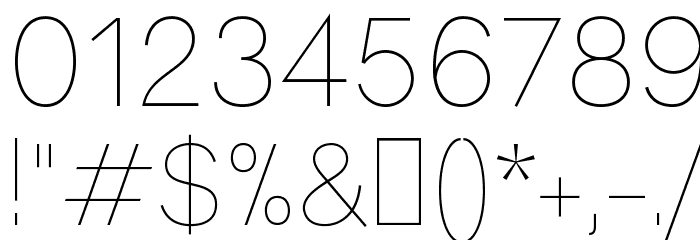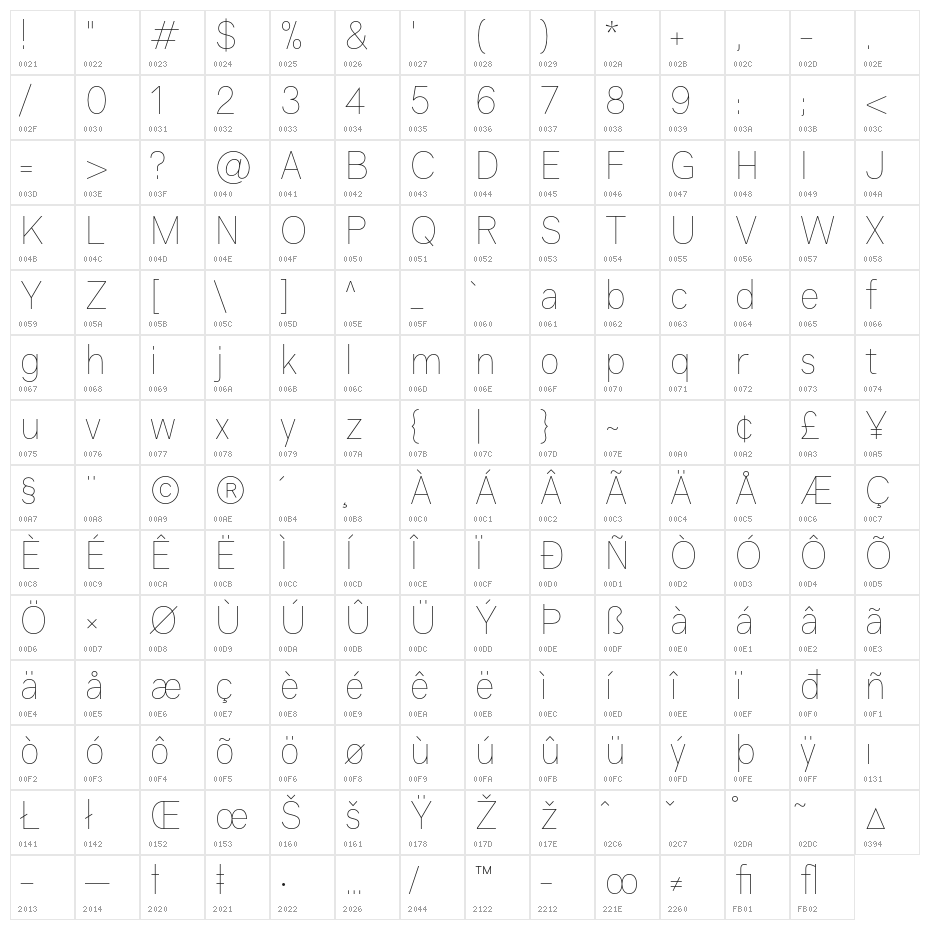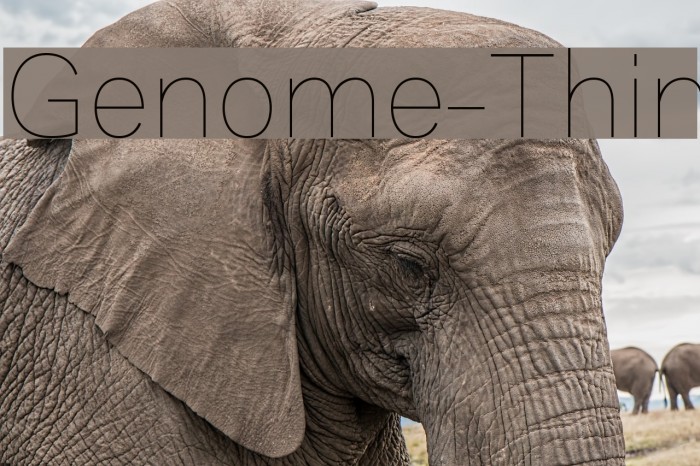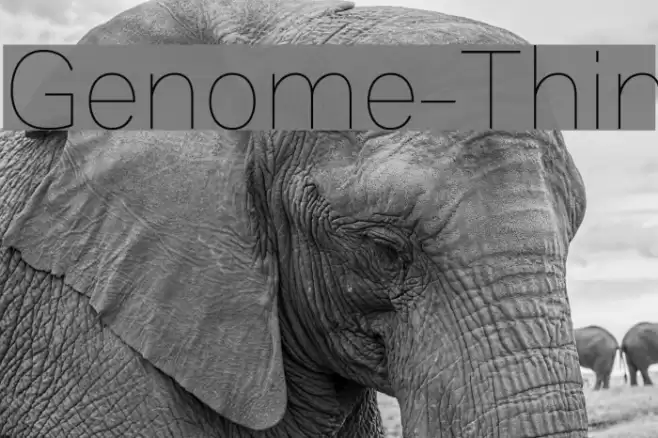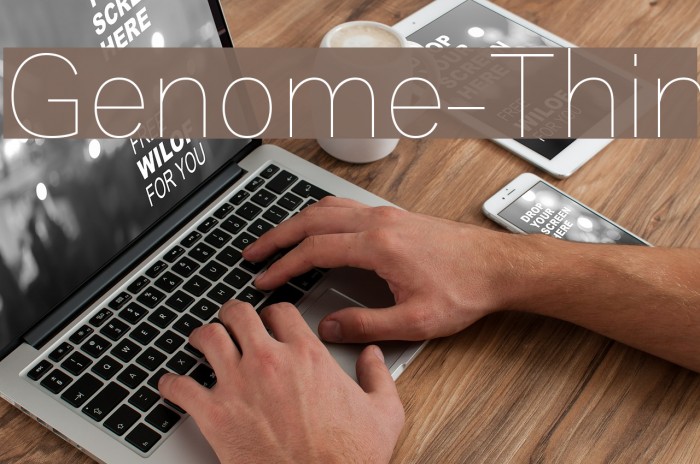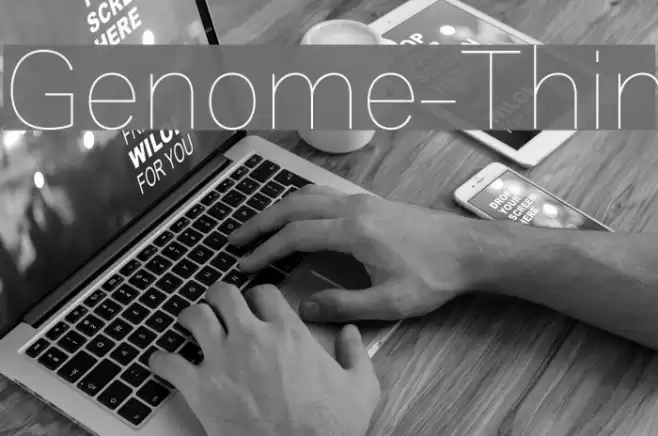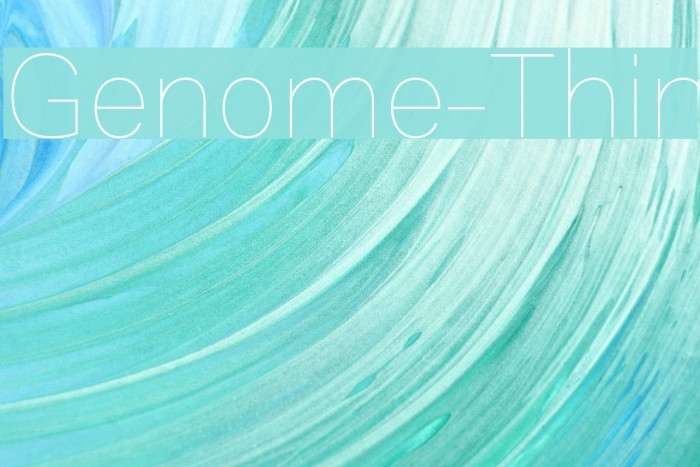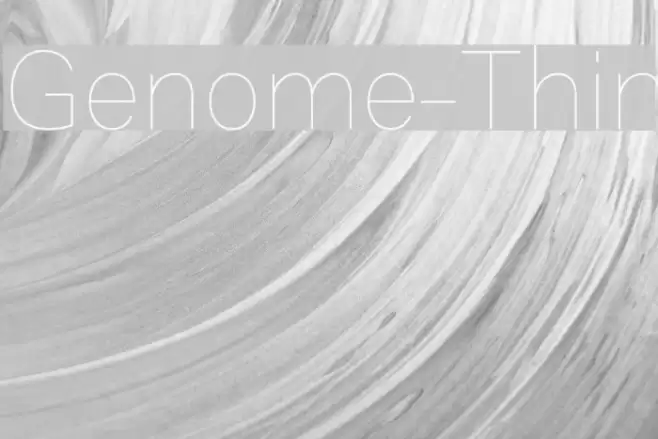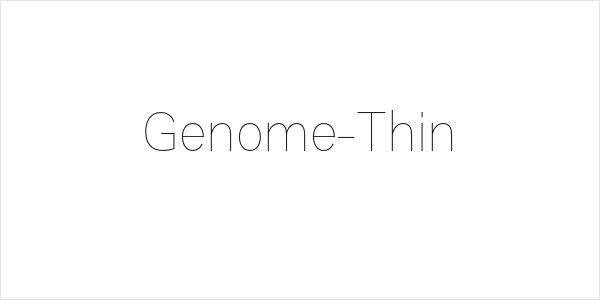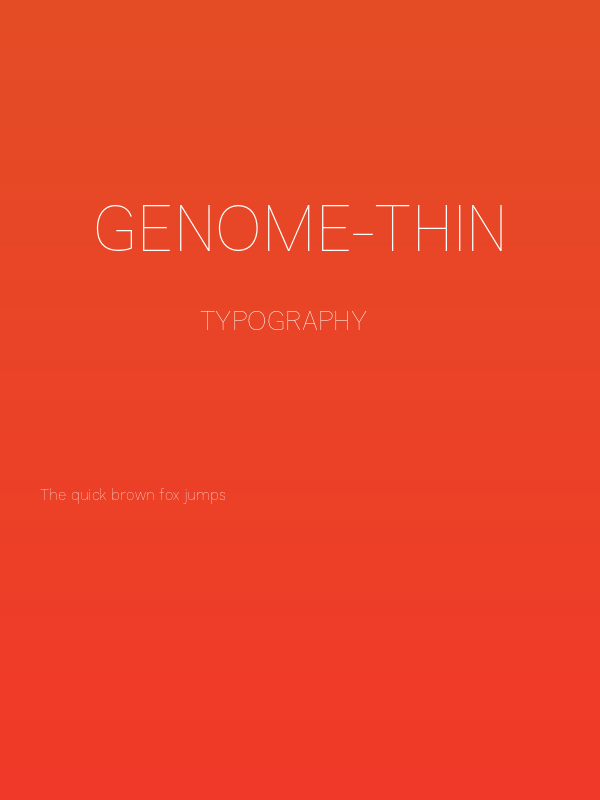
Genome-Thin Font
Genome-Thin Description
This font features a clean and modern sans-serif design with a thin weight, emphasizing simplicity and elegance. The characters are crafted with uniform stroke widths, providing a sleek and minimalistic appearance. The uppercase and lowercase letters maintain a consistent geometric structure, enhancing readability and visual harmony. The numerals and special characters are designed to complement the overall aesthetic, making it versatile for various applications. The font's thin lines and open forms create a sense of spaciousness, ideal for contemporary design projects.
| Proposed Projects | Ideal for branding, editorial design, web design, and minimalist posters. |